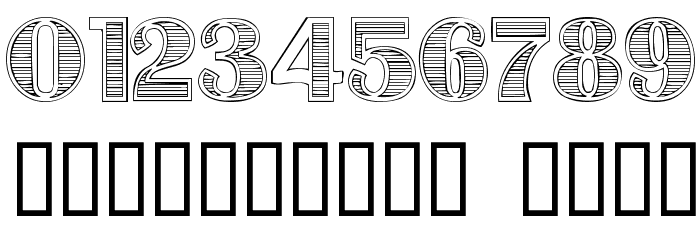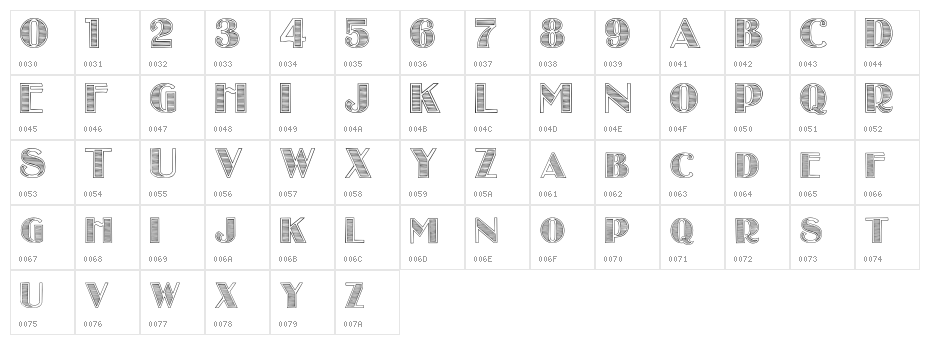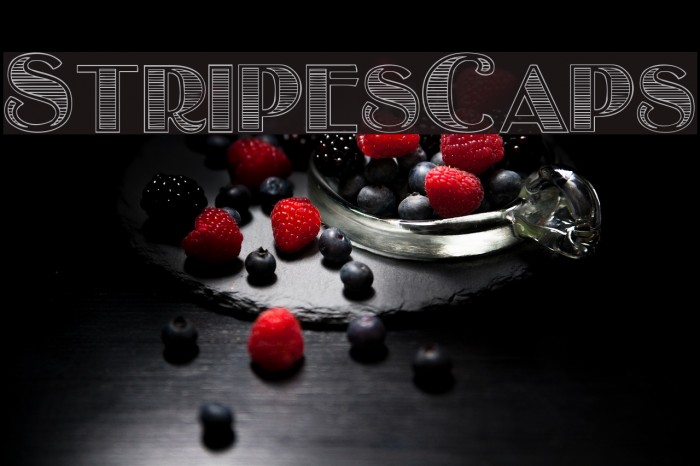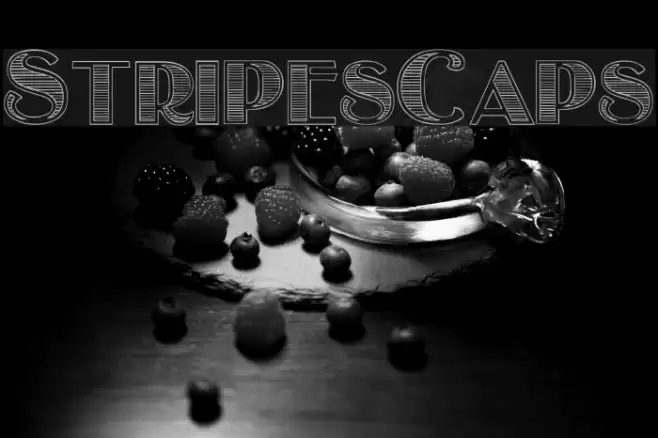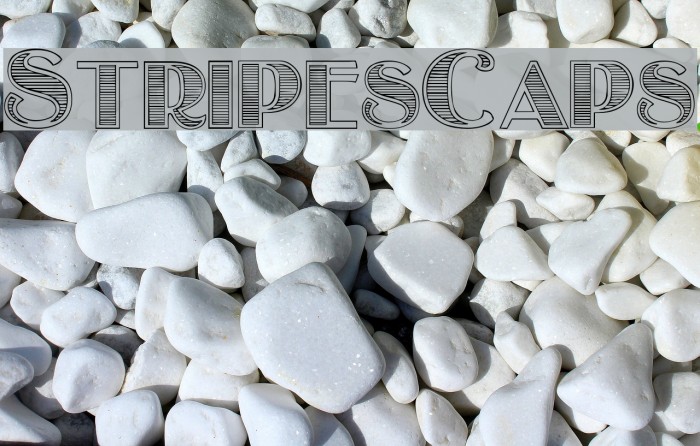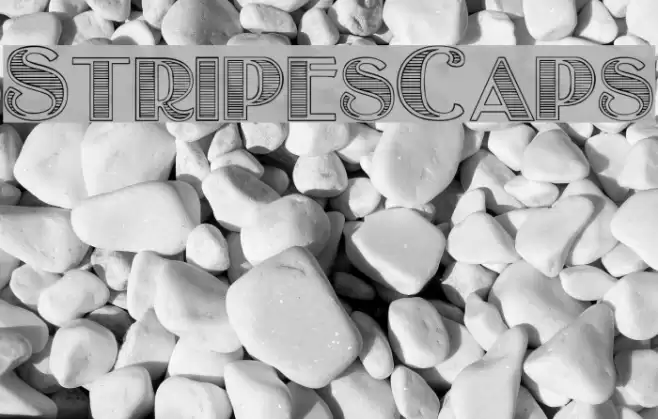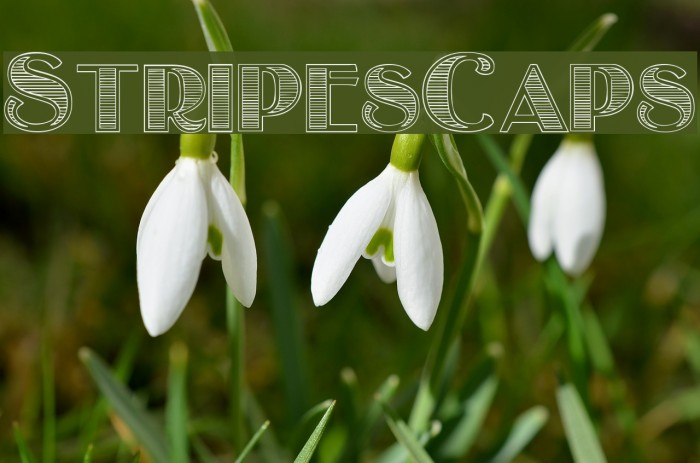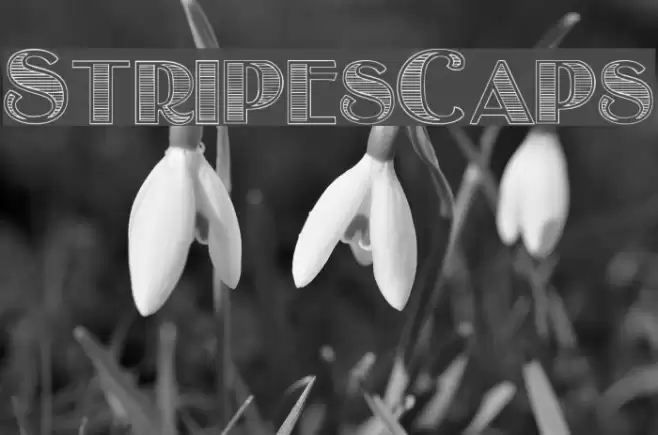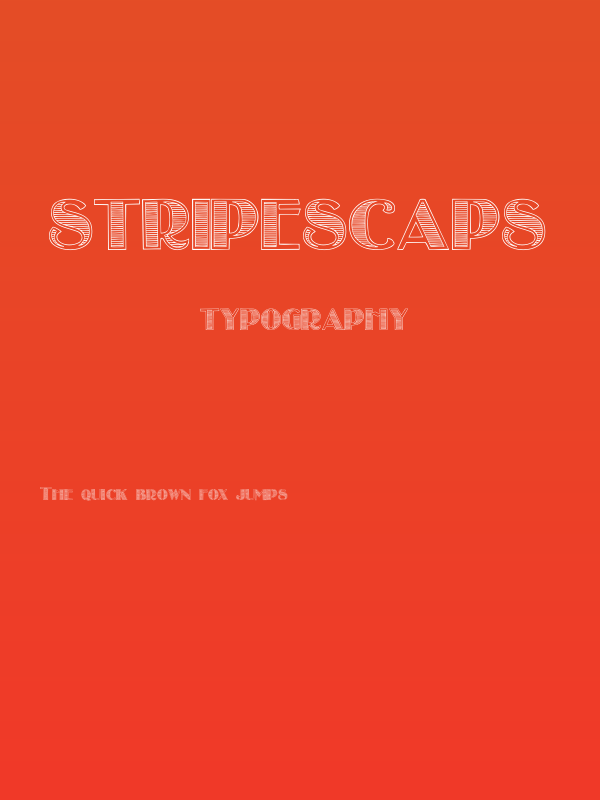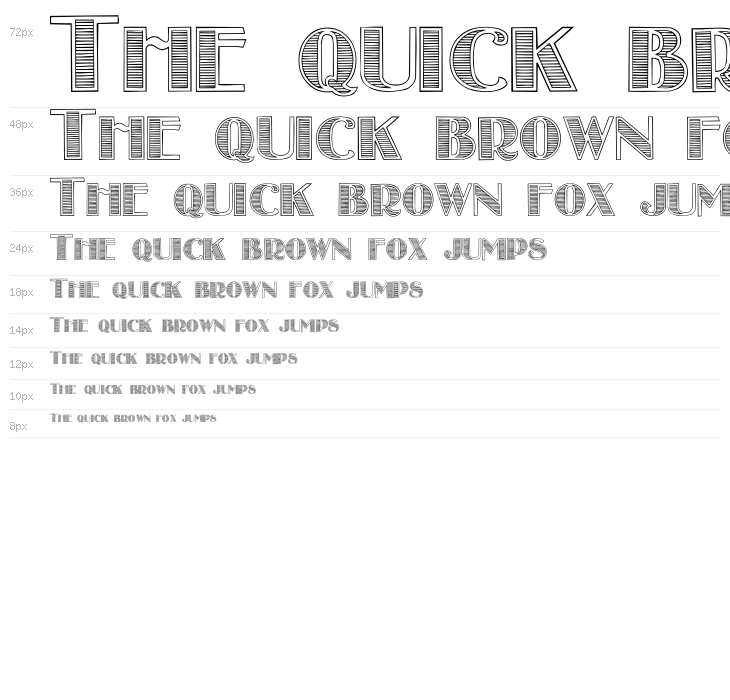
StripesCaps Font
StripesCaps Description
This font features a distinctive striped pattern within each character, creating a visually striking and dynamic appearance. The uppercase and lowercase letters, as well as numbers, are designed with a consistent line pattern that gives a sense of movement and texture. The characters are bold and have a geometric structure, making them stand out prominently. The font's unique style is both modern and playful, suitable for creative projects that require a touch of flair. The spacing between characters is normal, allowing for readability while maintaining its decorative appeal.
| Proposed Projects | Ideal for posters, branding, headlines, and any design project that seeks to capture attention with a bold, artistic flair. |